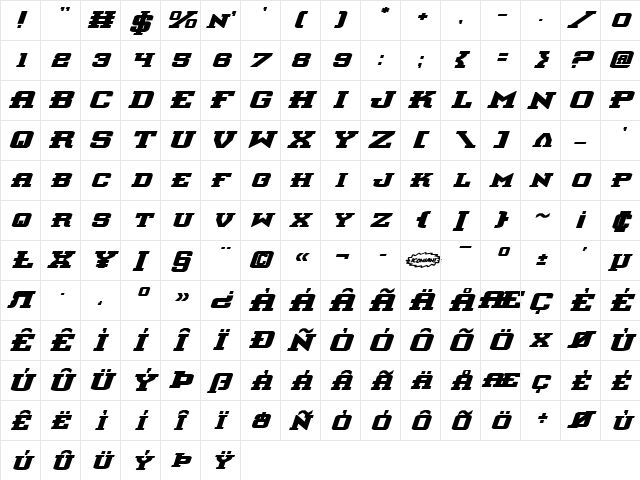
Interceptor Bold ExpItalic Bold ExpItalic
Design Context for Interceptor Bold ExpItalic Typeface
Interceptor Bold ExpItalic takes a measured approach to typography — its balanced proportions and neutral character make it a reliable workhorse for both digital and print work. The slanted form adds forward momentum and visual energy. Its bold stroke weight gives it real presence on the page.